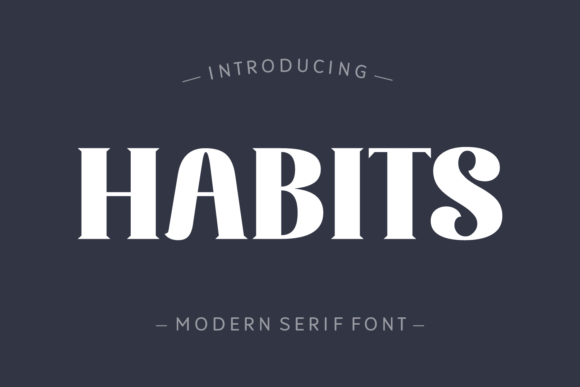
Habits Font: Elevate Your Designs with a Modern, Bold Serif
In the world of typography, fonts play a crucial role in conveying the tone and personality of a brand. A well-chosen font can elevate a design, making it more engaging, memorable, and impactful. For brands looking to make a bold statement, Habits Font is an excellent choice. This modern, bold serif font combines classic elegance with a contemporary flair, making it perfect for headlines and eye-catching designs.
The Characteristics of Habits Font
Habits Font is distinguished by its strong lines and distinctive letterforms. Its bold serif design gives it a confident and stylish appearance, making it ideal for brands that want to convey a sense of sophistication and elegance. The font’s classic roots are evident in its traditional serif structure, while its modern twist is reflected in its clean lines and streamlined aesthetic.
One of the key features of Habits Font is its versatility. It can be used in a variety of design contexts, from luxury branding and advertising to editorial design and packaging. Its bold and eye-catching appearance makes it perfect for headlines, titles, and other display text, while its clear and legible design ensures that it remains effective even at smaller sizes.
The Benefits of Using Habits Font
So, why choose Habits Font for your design projects? Here are just a few benefits of using this modern, bold serif font:
- Conveys Confidence and Style: Habits Font exudes confidence and style, making it perfect for brands that want to make a bold statement.
- Versatile: Habits Font can be used in a variety of design contexts, from luxury branding and advertising to editorial design and packaging.
- Legible: Despite its bold design, Habits Font remains clear and legible, even at smaller sizes.
- Elegant: Habits Font’s classic roots and modern twist give it a sophisticated and elegant appearance.
How to Use Habits Font Effectively
To get the most out of Habits Font, it’s essential to use it effectively. Here are a few tips for incorporating this modern, bold serif font into your designs:
- Use it for Headlines and Titles: Habits Font is perfect for headlines and titles, where its bold and eye-catching appearance can be used to maximum effect.
- Pair it with a Sans-Serif Font: For body text, pair Habits Font with a sans-serif font to create a clear and legible design.
- Experiment with Different Sizes: Habits Font remains effective at a range of sizes, so don’t be afraid to experiment with different sizes to find the one that works best for your design.
The Design Process Behind Habits Font
The design process behind Habits Font involved a careful consideration of both classic and modern typographic principles. The goal was to create a font that would combine the elegance of traditional serif fonts with the boldness and confidence of modern sans-serif fonts.
The design team behind Habits Font began by researching classic serif fonts, analyzing their structure, letterforms, and typographic characteristics. They then took these traditional elements and infused them with a modern twist, using clean lines, streamlined shapes, and a bold aesthetic.
The result is a font that is both elegant and bold, sophisticated and eye-catching. Habits Font is a true reflection of the design team’s skill and expertise, and it is sure to make a lasting impression on anyone who sees it.
Why Habits Font is Perfect for Brands
In today’s competitive marketplace, brands need to stand out from the crowd. One way to do this is through effective typography, and Habits Font is an excellent choice. Here are just a few reasons why Habits Font is perfect for brands:
- Makes a Bold Statement: Habits Font is designed to make a bold statement, conveying confidence and style in equal measure.
- Elegant and Sophisticated: Habits Font’s classic roots and modern twist give it a sophisticated and elegant appearance, making it perfect for luxury brands.
- Versatile: Habits Font can be used in a variety of design contexts, from advertising and branding to editorial design and packaging.
In conclusion, Habits Font is a modern, bold serif font that combines classic elegance with a contemporary flair. Its strong lines and distinctive letterforms make it perfect for headlines and eye-catching designs, while its clear and legible design ensures that it remains effective even at smaller sizes. Whether you’re a designer, brand owner, or simply someone who appreciates great typography, Habits Font is an excellent choice.
- What is Habits Font?: Habits Font is a modern, bold serif font that combines classic elegance with a contemporary flair.
- What is Habits Font used for?: Habits Font is perfect for headlines, titles, and other display text, and can be used in a variety of design contexts, from luxury branding and advertising to editorial design and packaging.
- Is Habits Font legible?: Yes, despite its bold design, Habits Font remains clear and legible, even at smaller sizes.